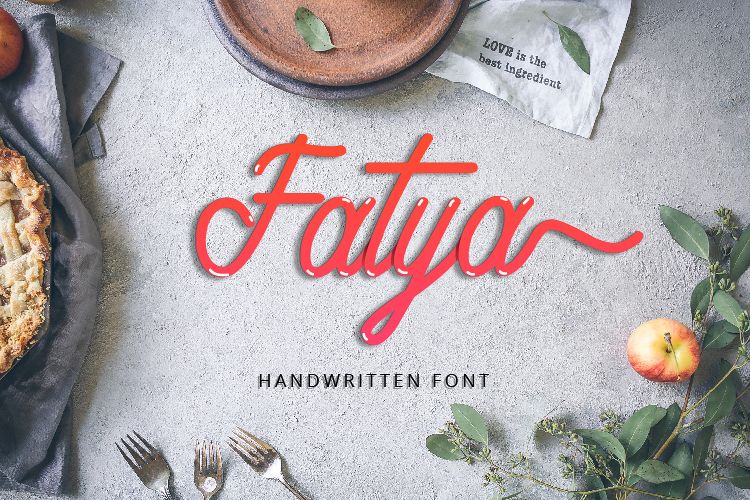
Fatya Handwritten Font
Fatya
Fatya is a modern font with more featured and made with love. This font suitable for wedding invitation, greeting cards, T-Shirt, Logo or any design that you create. comes with a complete set of standard characters, Alternates, Ligature Variation, Punctuation.